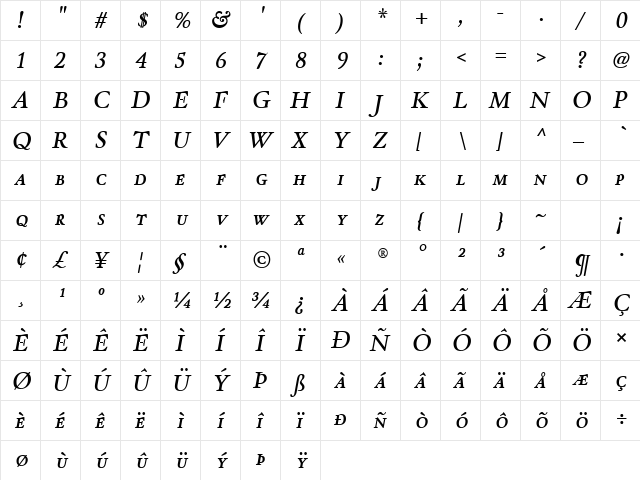
Winthorpe SmallCaps SemiBold Italic Font Preview
Winthorpe SmallCaps SemiBold Italic
Winthorpe SmallCaps SemiBold Italic Font Details
Design Context for Winthorpe Typeface
Winthorpe is a composed and adaptable typeface that performs quietly and consistently across a wide range of design contexts. Its italic angle brings a sense of urgency and motion to the letterforms. The heavy weight commands attention and anchors typographic hierarchies.
Pro Tip: Use Winthorpe for emphasis, pull quotes, and subheadings where its slanted energy can add rhythm to the layout.